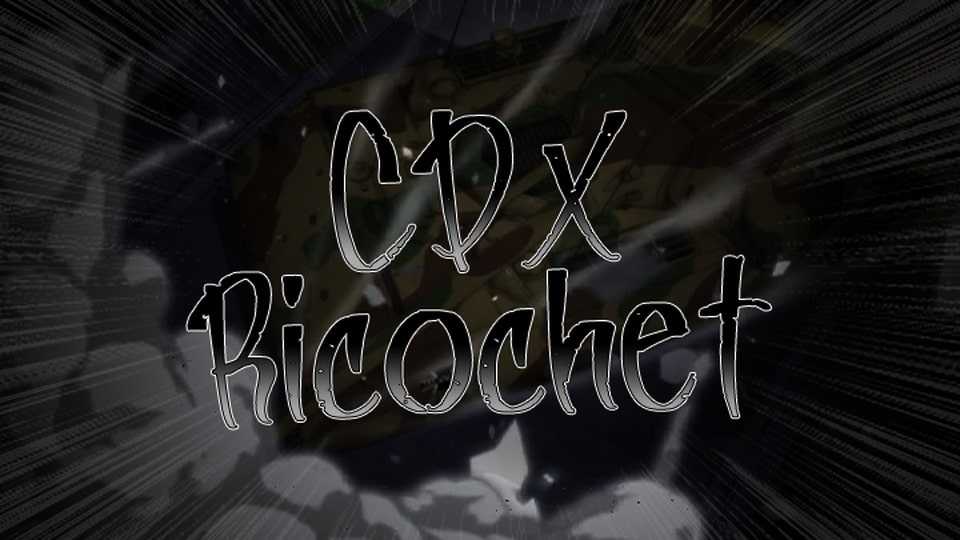
Download CDX Ricochet font, a rough hand lettered typeface made using a popular Clip Studio Paint brush often used by artists, it is perfect for comic titles and logos.